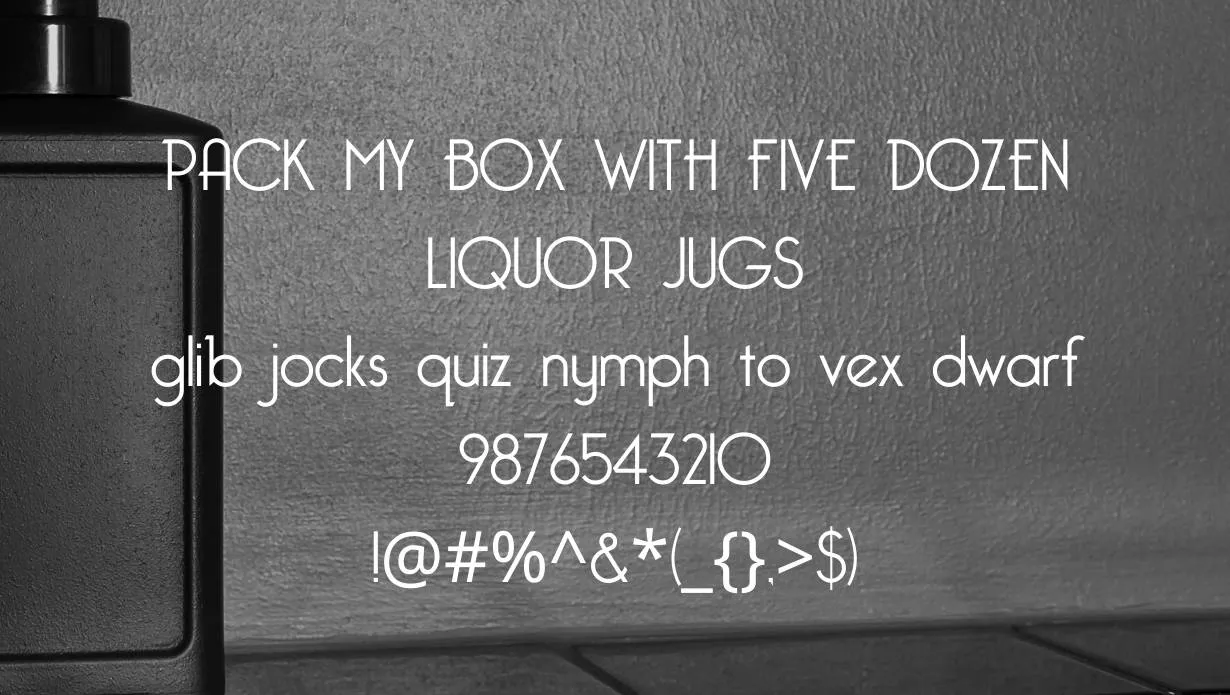
Bellerose Font is a fancy typeface that is perfect for headlines and short texts. The font was created by a very unique graphic designer  Harris Design. It has an interesting story behind it.
The font was inspired by the old fancy design, that is known for its usage and function. Black this Font is available in both regular and bold weights, making it perfect for a variety of applications.
This font glyph has been designed to work well in user interface (UI) environments. If you’re looking for a fancy font with a bit of personality, then this font is a great option.
Who Used Bellerose Font?
The Bellerose Font has a versatile look that can be used for a variety of projects. You can also create a unique look by using this font in a variety of weights.
Many websites provide a font generator tool that helps you generate any type of font.  This font is perfect for printing and displaying designs that need to be an eye-catching appearance and are easy to read. The glyph of this font has a sharp and edgy look, which makes it perfect for logos. Black Clover Font is a great choice for web and print design projects.
Bellerose Font Family Appearance
Yes, this is a good font for headlines and short texts. You can create a unique look by using this Font in a variety of weights.
No, This is not a standard font. Bellerose texture is a fancy typeface that is perfect for headlines and short texts.